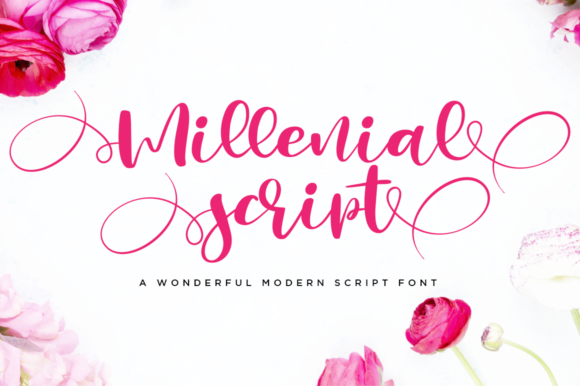
Step into the world of Millennial Script, a font so enchanting, it will leave you spellbound. This elegant and modern creation by Haksen is a masterpiece that captivates hearts with its graceful strokes and delightful flourishes.
Unleash your creativity and let your designs blossom with Millennial Script's captivating charm. Whether it's wedding invitations, save-the-dates, product packaging, or branding projects, this font adds a touch of sophistication and finesse that will leave a lasting impression.
Immerse yourself in the beauty of its varying baseline, smooth lines, gorgeous glyphs, and stunning alternates. Millennial Script is more than just a font; it's an artistic expression that breathes life into your designs.
Prepare to be swept off your feet as Millennial Script dances across your screen, leaving a trail of elegance in its wake. With its PUA encoding, you have effortless access to all the glyphs and swashes, making customization a breeze.
Embrace the charm of Millennial Script and elevate your designs to new heights. Its contemporary and fresh feel keeps you ahead of the curve, while its classy calligraphic influences add a timeless touch.
Don't resist the allure of Millennial Script. Let it be your muse, your creative companion, as you embark on a journey of design excellence. Fall in love with its enchanting beauty and watch as your projects reach new levels of sophistication.
Millennial Script is more than just a font; it's an experience. It's a chance to express your individuality, to captivate your audience, and to create designs that are truly unforgettable.